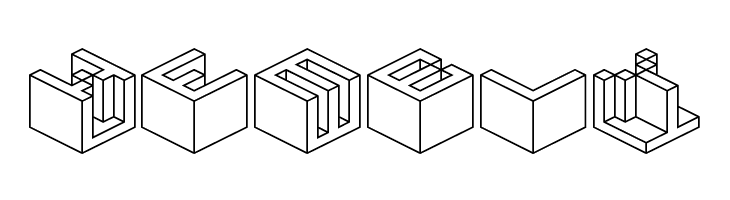
CD Numbers Font
- Font: CD Numbers
A 3D geometric font with characters enclosed in cube-like structures, offering a futuristic and architectural style.